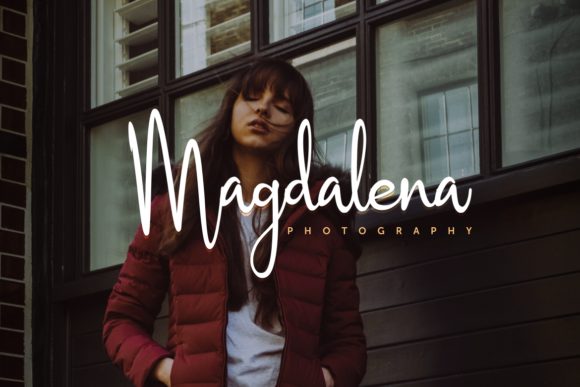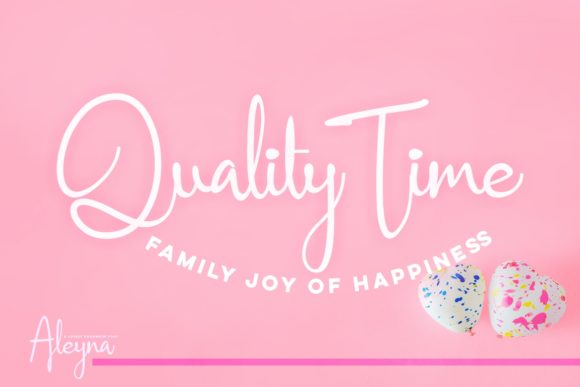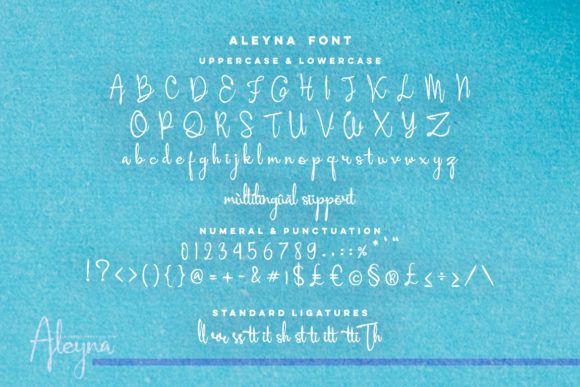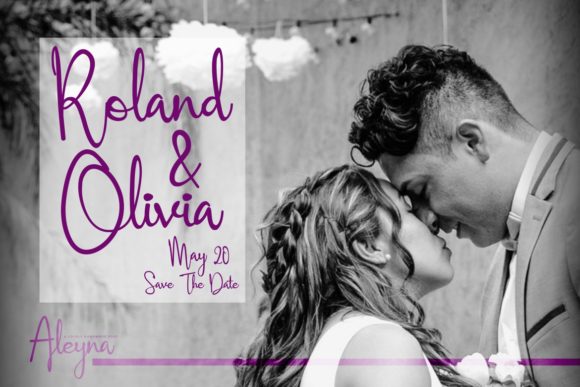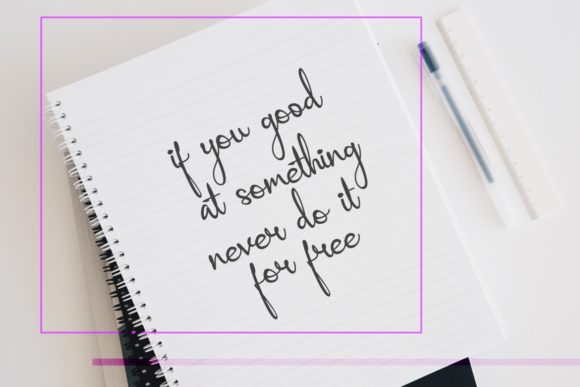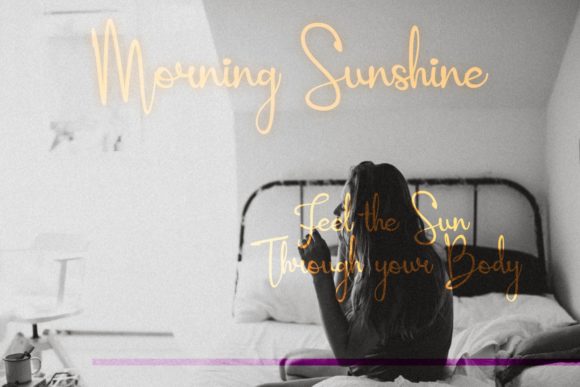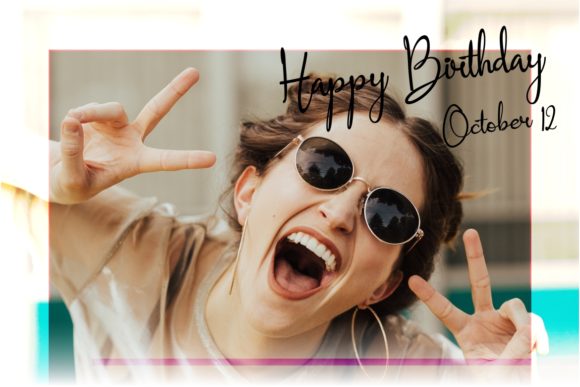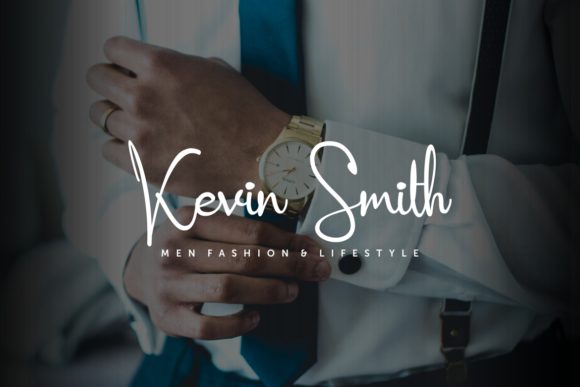
Aleyna Font
About Aleyna Font
Introducing “The Aleyna,” a stunning handwritten font designed with smooth curves, perfect for various printing techniques. This font is more than just a typeface; it’s a design asset crafted with cuteness and elegance, making it suitable for a wide range of projects that demand a stylish and versatile handwritten style.
“The Aleyna” stands out with its cute and elegant handwritten script, featuring smooth curves that enhance its visual appeal. Whether you’re working on logos, magazines, cover albums, quotes, birthday cards, or any project that requires a touch of charm, this font delivers with its distinctive and refined character.
Its smooth curves and elegant style ensure that your text exudes a sense of sophistication and sweetness. Logos designed with this font convey a cute and memorable brand identity. Magazines, quotes, birthday cards, and other designs crafted with “The Aleyna” showcase an elegant and versatile vibe, making them visually appealing and adaptable to various contexts.
The versatility of “The Aleyna” makes it a great choice for a variety of creative applications, providing a handwritten font that adds a touch of charm to any design context.
In summary, “The Aleyna” is more than just a font; it’s a design companion that brings a stunning handwritten style with smooth curves to your projects. Embrace its cuteness for logos, magazines, quotes, and more, and let “The Aleyna” enhance your designs with a touch of elegance and charm.